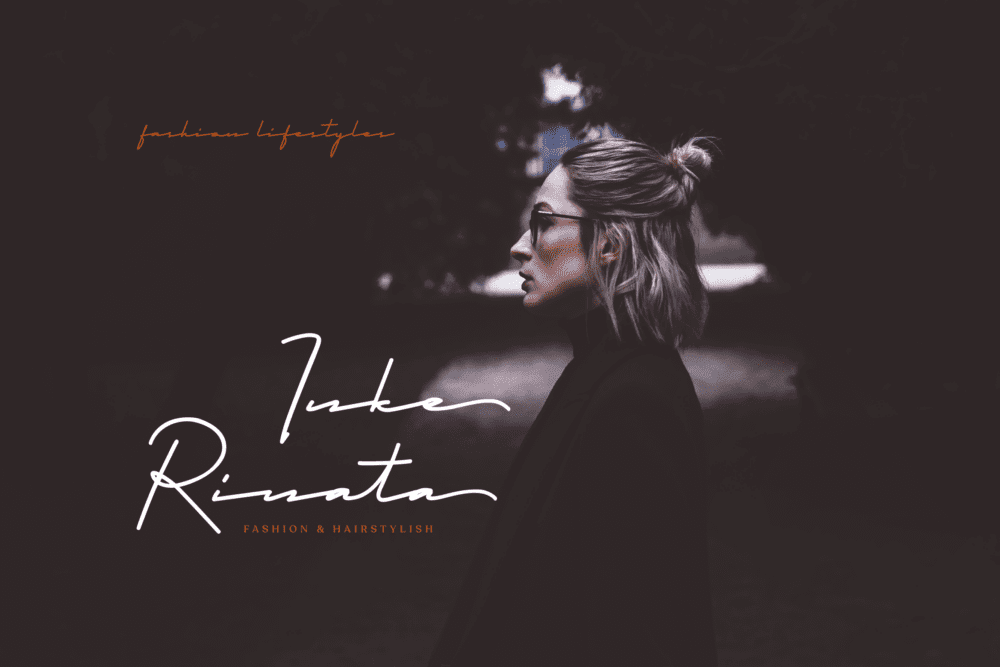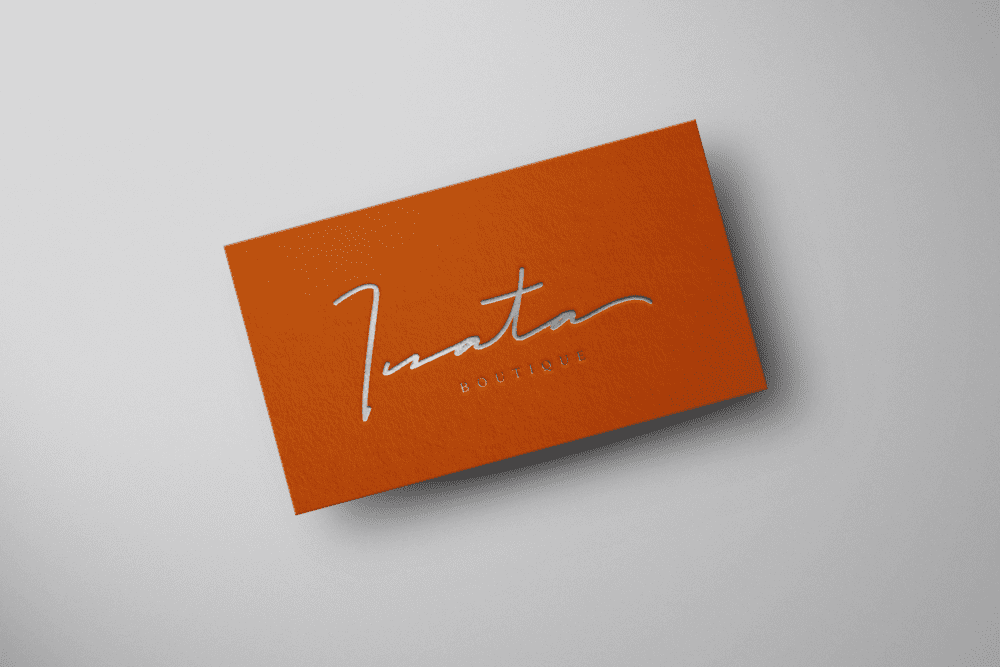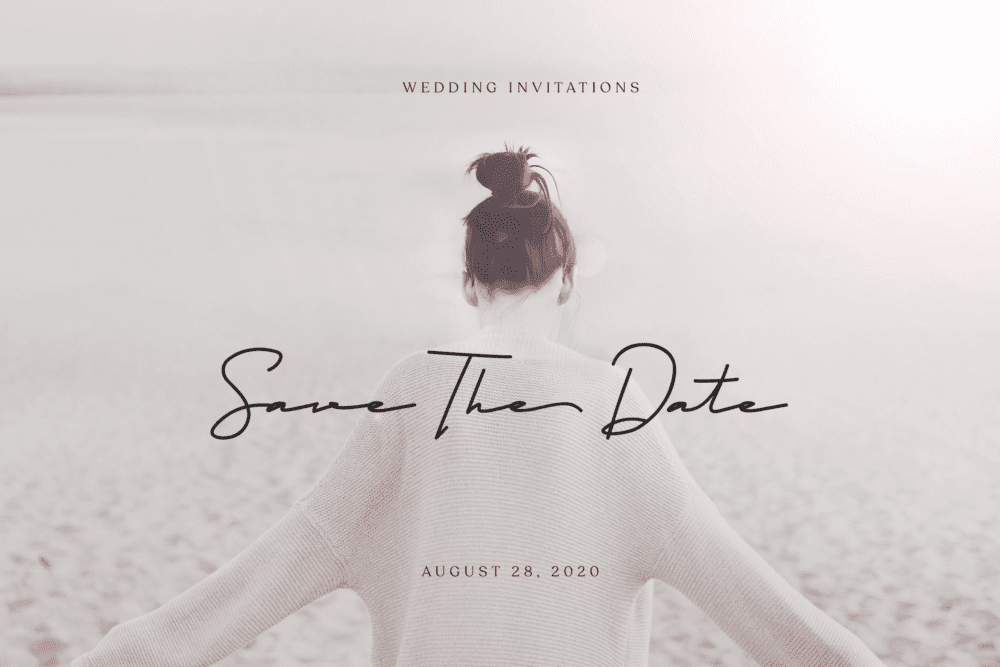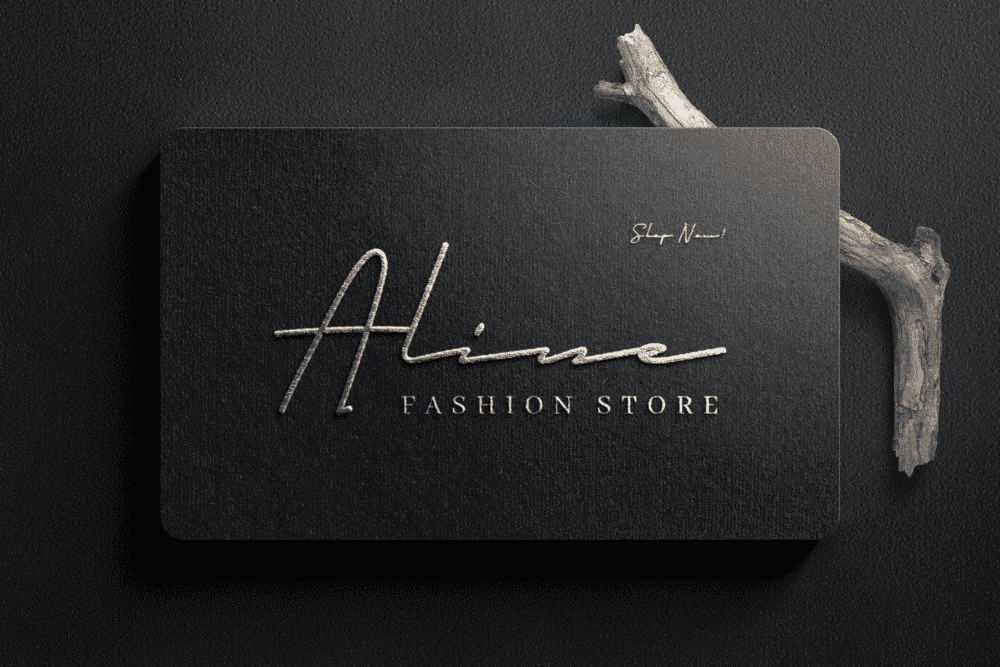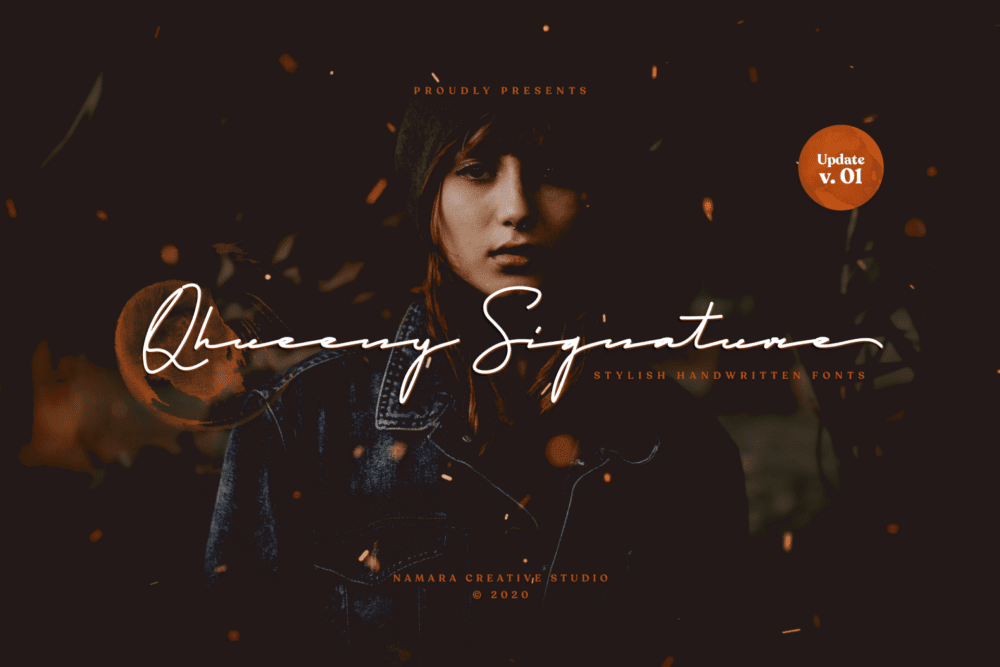
Qhueeny Signature Font
Qhueeny Signature Font simplifies elegance into a one truly outstanding handwritten font. It maintains classy handwriting influences while feeling contemporary and fresh. This versatility will appeal to a wide range of crafty ideas, from Logo, Business Card, Wedding Invitation, unique title, and stationery design.